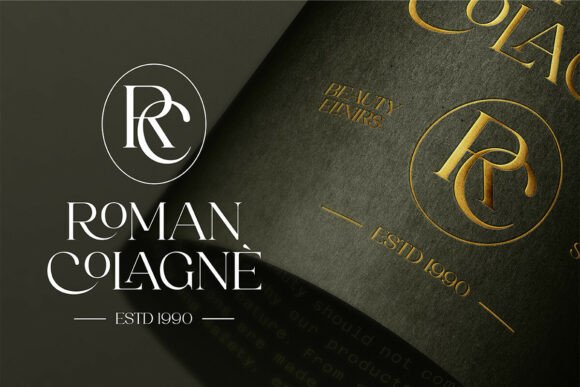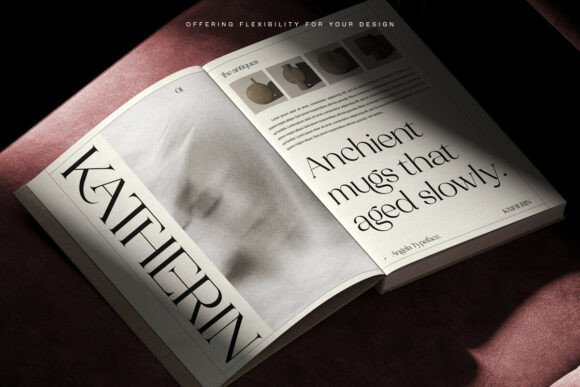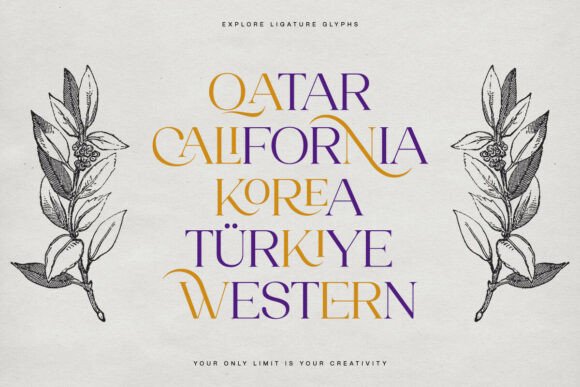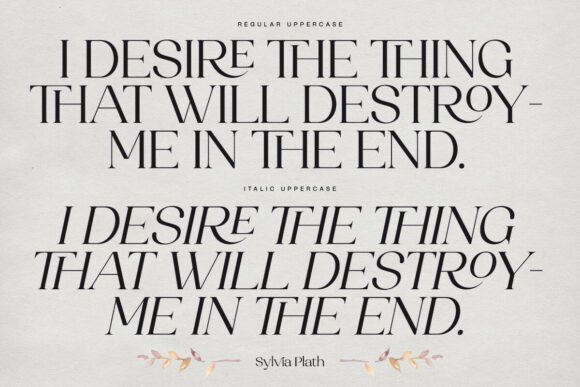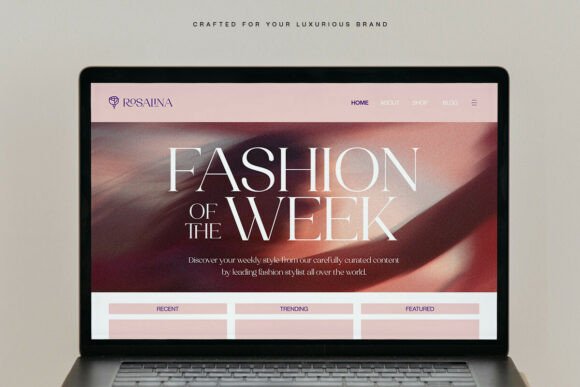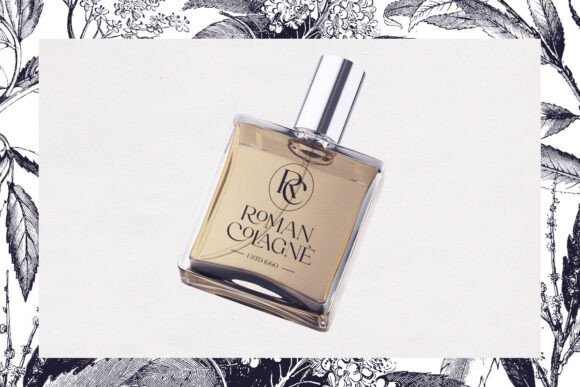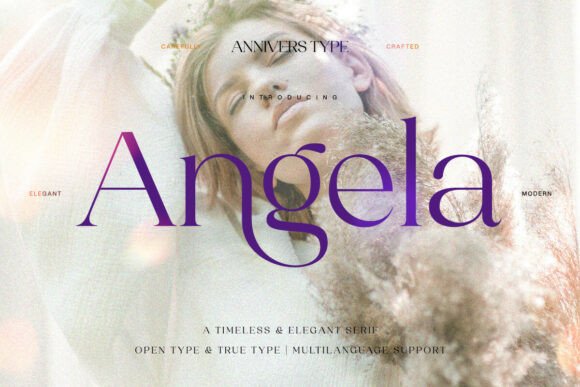
Discover the Timeless Elegance of Angela Font
In the world of typography, few fonts manage to strike a balance between classic sophistication and modern elegance. Angela, a serif font, is one such exceptional typeface that embodies the perfect blend of timeless grace and refined sophistication. With its delicate curves, balanced proportions, and subtle details, Angela brings an air of elegance to any project it graces, making it a versatile choice for designers and crafters alike.
The Essence of Angela Font
Angela’s design is characterized by its high contrast strokes and classic letterforms, which make it ideal for impactful headlines, refined logos, and artistic compositions. The font’s delicate curves and subtle details exude a sense of luxury and sophistication, while its balanced proportions ensure that it remains highly legible, even at smaller sizes.
Perfect for Luxury Branding and Editorial Layouts
Angela’s distinctive personality, which is both confident and feminine, makes it an excellent choice for luxury branding and editorial layouts. The font’s elegant appearance instantly elevates any design, adding a touch of refinement and sophistication. Whether you’re creating a high-end fashion magazine, a luxury brand’s visual identity, or a premium product’s packaging, Angela is sure to make a lasting impression.
A Popular Choice for Wedding Stationery and Premium Packaging
Angela’s versatility extends to more specialized applications, such as wedding stationery and premium packaging. The font’s classic, elegant appearance makes it perfect for creating beautiful wedding invitations, programs, and other stationery items. Similarly, its sophisticated look and feel make it an excellent choice for premium packaging, where standing out on crowded store shelves is crucial.
Key Features of Angela Font
- Delicate curves and subtle details: Angela’s design is characterized by its delicate curves and subtle details, which add to its elegant appearance.
- Balanced proportions: The font’s balanced proportions ensure that it remains highly legible, even at smaller sizes.
- High contrast strokes: Angela’s high contrast strokes make it ideal for impactful headlines and artistic compositions.
- Classic letterforms: The font’s classic letterforms add to its timeless, sophisticated appearance.
Why Choose Angela Font?
There are several reasons why designers and crafters choose Angela font for their projects:
- Elegance and sophistication: Angela’s elegant appearance adds a touch of refinement and sophistication to any design.
- Versatility: The font’s versatility makes it suitable for a wide range of applications, from luxury branding to editorial layouts, wedding stationery to premium packaging.
- Legibility: Angela’s balanced proportions ensure that it remains highly legible, even at smaller sizes.
- Timeless appeal: The font’s classic design ensures that it will remain a popular choice for years to come.
Tips for Using Angela Font Effectively
To get the most out of Angela font, consider the following tips:
- Use it for headlines and titles: Angela’s high contrast strokes and classic letterforms make it ideal for impactful headlines and titles.
- Pair it with complementary fonts: Pair Angela with complementary fonts to create a harmonious and visually appealing design.
- Experiment with different sizes and colors: Experiment with different sizes and colors to find the perfect combination for your design.
| Author | Annivers Type |
In conclusion, Angela font is a versatile and elegant typeface that embodies the perfect blend of timeless grace and refined sophistication. Its delicate curves, balanced proportions, and subtle details make it an excellent choice for a wide range of applications, from luxury branding to editorial layouts, wedding stationery to premium packaging. With its high contrast strokes and classic letterforms, Angela is sure to add a touch of elegance and sophistication to any design.